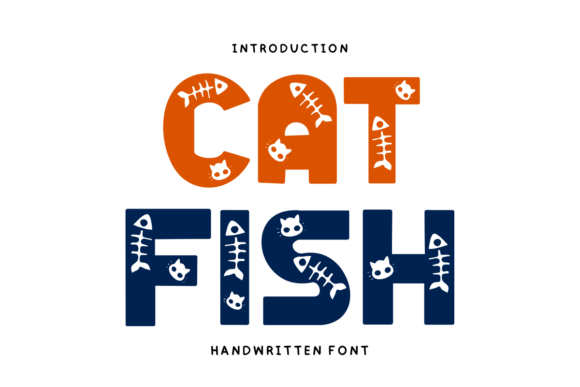
The Perfect Catch: Elevate Your Designs with Cat Fish Font
Have you ever stared at a blank page, wondering how to bring your creative vision to life? You’re not alone. We’ve all been there – searching for that one element to make our designs truly stand out. For designers, the right font can be the key to unlocking a stunning visual identity.
Enter Cat Fish Font, a beautiful and organic decorative font that’s about to become your new go-to. With its lovely ornaments and elegant flair, Cat Fish Font is the perfect addition to any design library. Whether you’re working on a branding project, a wedding invitation, or a social media campaign, this versatile font has the potential to elevate your creations and leave a lasting impression.
By incorporating Cat Fish Font into your designs, you’ll be able to add a touch of sophistication and whimsy that’s sure to captivate your audience. So why settle for ordinary when you can have extraordinary? Dive into the world of Cat Fish Font and discover a whole new level of design possibilities.
Cat Fish Font Key Features
- Unique Characteristics: The font features a unique, hand-drawn design with a subtle organic feel, adding a touch of personality to any design project.
Designer Review: Cat Fish Font
Overall, I think Cat Fish Font has some great qualities, but also some notable limitations. Let’s dive in!
- Unique aesthetic: Cat Fish Font has a quirky, whimsical feel that’s perfect for brands looking to stand out.
- Customizability: The font offers a range of styles and weights, making it easy to tailor to your specific design needs.
- Cross-browser compatibility: I didn’t encounter any issues with the font rendering across different browsers and devices.
- Readability issues: While the font looks great on screen, I found it to be somewhat challenging to read in smaller sizes or at a distance.
- Lack of versatility: While the customizability is a plus, the font’s overall style may not be suitable for all design projects.
- Font size limitations: I experienced some issues with the font size scaling, particularly when using the font in headings.
While Cat Fish Font has some great qualities, I think its limitations hold it back from being a top choice for designers. With some tweaks and refinements, it has the potential to be a truly unique and effective font. As it stands, I’d recommend it for projects where its quirky aesthetic is a good fit, but be prepared to make some compromises on readability and versatility.
Tips for Getting the Most Out of Cat Fish Font
Use Cat Fish Font for creative and playful designs, such as social media graphics, posters, and flyers. Experiment with different font sizes and colors to add visual interest to your design.
Cat Fish Font is ideal for:
– Posters and flyers
– Business cards and marketing materials
– Web design and e-commerce websites
Alternatives to Cat Fish Font for Designers
Playfair Display is a luxurious and elegant serif font ideal for high-end designs, such as wedding invitations, luxury branding, and fine art prints. It’s a great alternative to Cat Fish Font for designers who want to add sophistication and refinement to their projects.
Comparison: While Cat Fish Font has a more casual, handwritten feel, Playfair Display is a more formal and ornate font. Playfair Display is better suited for projects that require a touch of elegance and sophistication.